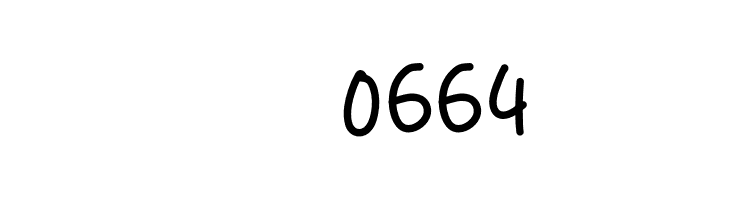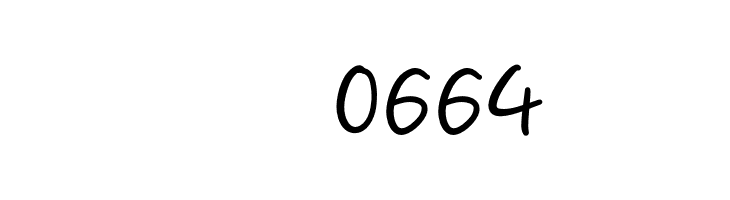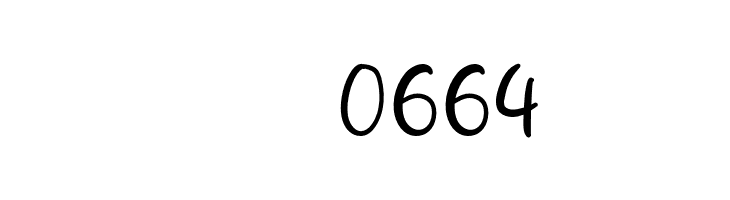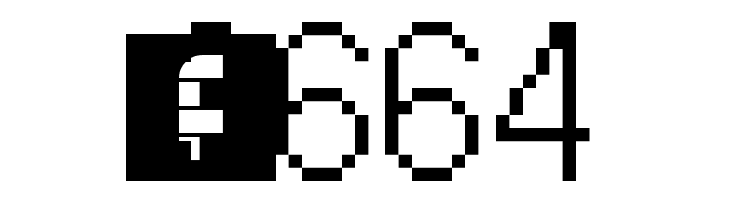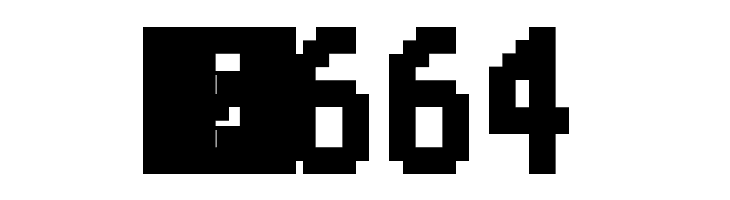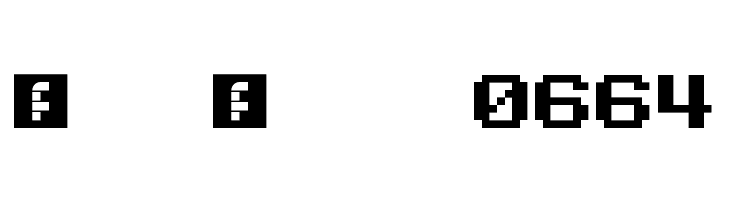
• Medish Deco PERSONAL USE ONLY
An ornate and decorative font with intricate swirls and flourishes.
• Medish Script PERSONAL USE ONLY
An elegant script font with fluid, interconnected strokes and graceful curves.
• MEEKSA Regular
A pixelated, blocky font with a retro digital display style.
• Meeting
Hand-drawn, illustrative font made from meeting scene sketches.
• Mega Man 10 Regular
• Mega Man Battle Network Regular
A bold, pixelated font with a retro video game aesthetic.
• Mega Man ZX Regular
A pixelated, monospaced font with a retro, digital aesthetic.
• MEGA SLANT LINE 3D
A bold, futuristic 3D font with slanted, geometric characters and a dynamic style.
• Megamax Jones
• MEGASLANTLINE
A futuristic, angular font with a dynamic slant and geometric design.
• Meglaphoid
A bold, graffiti-inspired font with dynamic, sweeping strokes and artistic flair.
• Meichic
• Melay Script PERSONAL USE
A graceful and elegant script font with fluid, cursive strokes.
• Melly Shoopia
A playful, casual handwritten font with smooth, flowing curves.
• Melthin
A playful, casual handwritten font with fluid strokes.
• MeltLvOneAl
A playful, bold font with rounded, bubbly characters and a whimsical style.
• MeltLvTwoAl
A playful, bold font with rounded, blob-like characters and a whimsical style.
• MeltThreeLvAl